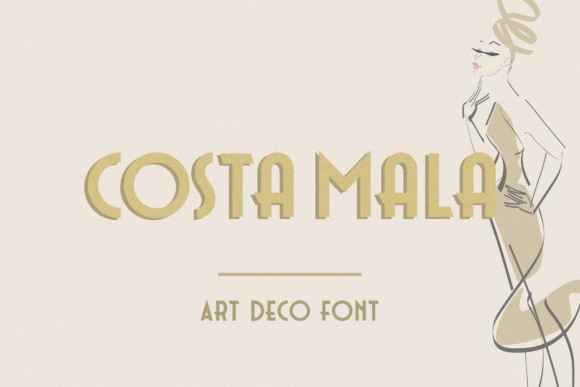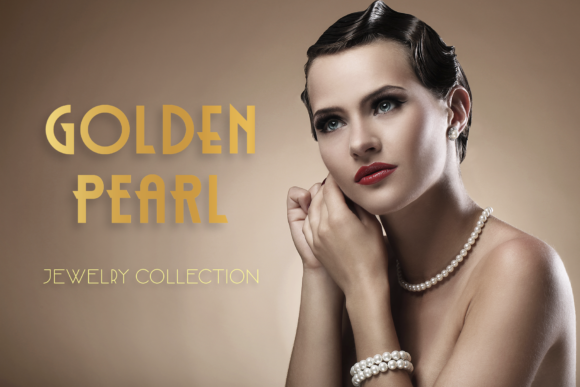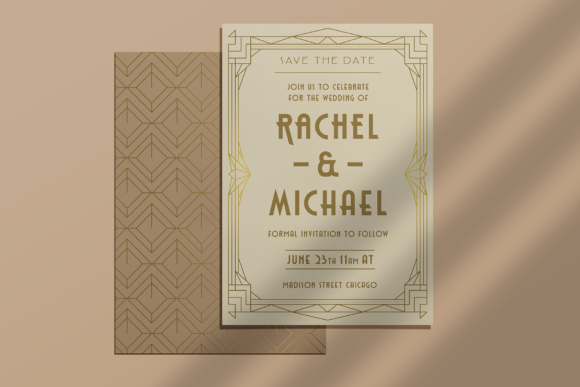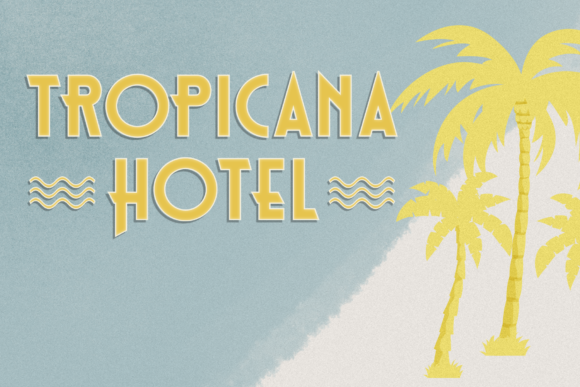
Costa Mala Font: An Elegant Art Deco Font for Vintage Designs
About the Costa Mala Font
Presenting Costa Mala Font, a unique and stylish typeface that will make your work stand out. Costa Male feels playfully nostalgic and delivers an incredible vintage aesthetic. With its neat and beautiful arrangement of letters, this display font will look outstanding in both formal and non-formal designs.
Costa Mala excels as a display font for headlines, logos, and short text segments in branding materials, posters, and packaging. Its vintage charm works particularly well for projects evoking a retro or nostalgic feel, such as coffee shop branding or vintage clothing lines. However, its ornate details make it unsuitable for body text or UI elements where readability is paramount. Avoid using it for large blocks of text.
The playful yet sophisticated nature of Costa Mala pairs well with clean sans-serif fonts like Lato or Open Sans for a balanced contrast. For a more vintage-inspired feel, consider pairing it with a complementary serif font like Merriweather or Playfair Display. A touch of elegance can be added by incorporating a delicate script font, such as Great Vibes, in supporting text.
Costa Mala possesses a bold yet friendly personality, offering a nostalgic charm without sacrificing legibility in appropriate contexts. Its versatility allows it to fit projects ranging from playful and informal to sophisticated and refined, provided the text length remains concise.
Costa Mala Font Usage Examples
Costa Mala Font Example